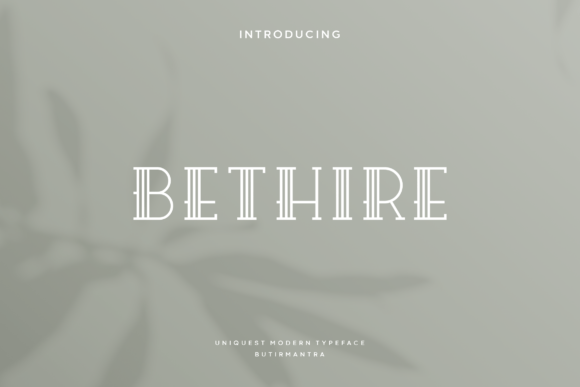
Bethire Font: Elevate Your Designs with a Touch of Art Deco Elegance
Are you on the hunt for a font that exudes sophistication, modernity, and a dash of vintage charm? Look no further than Bethire, a stunning art-deco-inspired display font that’s sure to captivate your audience and elevate your designs to new heights. In this article, we’ll dive into the world of Bethire, exploring its unique features, design inspiration, and the endless possibilities it offers for creative professionals.
The Birth of Bethire: A Modern Take on Art Deco
Bethire is a cool, modern, art-deco-inspired display font that’s been carefully crafted to bring a touch of luxury and glamour to your projects. Its design is rooted in the opulent art deco style of the 1920s, characterized by geometric shapes, metallic materials, and ornate decorations. However, Bethire’s creators have skillfully updated this classic aesthetic to make it relevant for contemporary designs, making it perfect for designers and crafters looking to add a unique twist to their work.
What Makes Bethire Stand Out?
So, what sets Bethire apart from other fonts? Here are just a few of its standout features:
- Unique letterforms: Bethire boasts distinctive letterforms that are both elegant and bold. Its characters are designed to make a statement, with clean lines, geometric shapes, and a touch of sophistication.
- Art deco flair: The font’s art deco inspiration is evident in its ornate details, metallic textures, and luxurious feel. This makes it perfect for designs that require a touch of vintage glamour.
- Modern twist: Despite its art deco roots, Bethire has a distinctly modern feel that’s perfect for contemporary designs. Its clean lines, balanced proportions, and clever use of negative space make it highly legible and versatile.
- Multilingual support: Bethire is designed to support multiple languages, making it a great choice for global brands, designers, and crafters who work with international clients.
How to Use Bethire in Your Designs
Bethire is an incredibly versatile font that can be used in a wide range of design projects, from:
- Logos and branding: Create stunning logos, business cards, and brand identities that exude luxury and sophistication.
- Posters and flyers: Use Bethire to create eye-catching posters, flyers, and brochures that demand attention.
- Web design: Add a touch of art deco elegance to your website’s typography, headers, and titles.
- Social media graphics: Elevate your social media presence with stunning graphics, headers, and posts that showcase Bethire’s unique style.
- Crafting and DIY projects: Use Bethire to add a personal touch to your crafting and DIY projects, such as handmade cards, invitations, and gift tags.
Tips for Getting the Most Out of Bethire
To truly fall in love with Bethire and bring your projects to the highest levels, here are a few expert tips:
- Experiment with colors: Bethire looks stunning in metallic colors, such as gold, silver, and copper. Try pairing it with bold colors to create a striking contrast.
- Play with textures: Add depth and interest to your designs by combining Bethire with textures, patterns, and metallic effects.
- Mix and match: Don’t be afraid to combine Bethire with other fonts to create a unique look. Try pairing it with a sans-serif font for a bold, modern contrast.
Bethire is a game-changing font that’s sure to capture your heart and elevate your designs to new heights. With its unique blend of art deco elegance and modern sophistication, it’s the perfect choice for designers and crafters looking to add a touch of luxury to their projects. So why wait? Fall in love with Bethire and bring your projects to the highest levels!